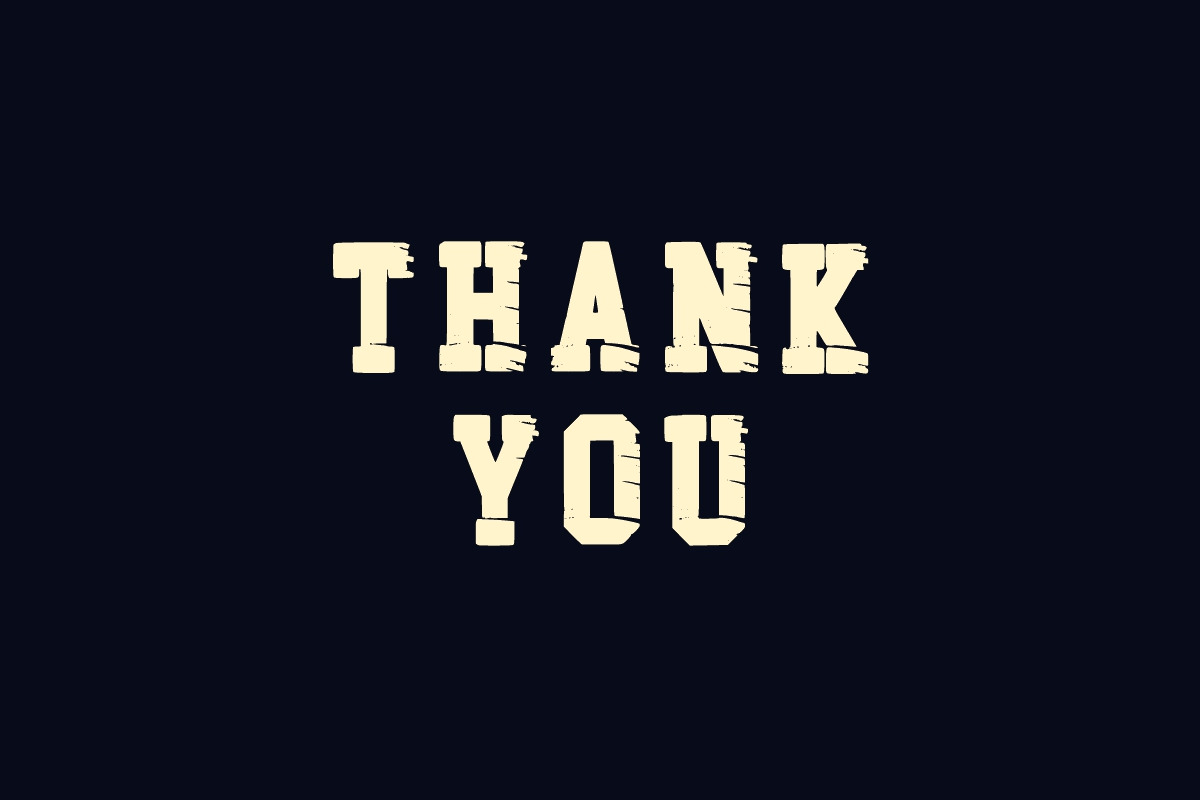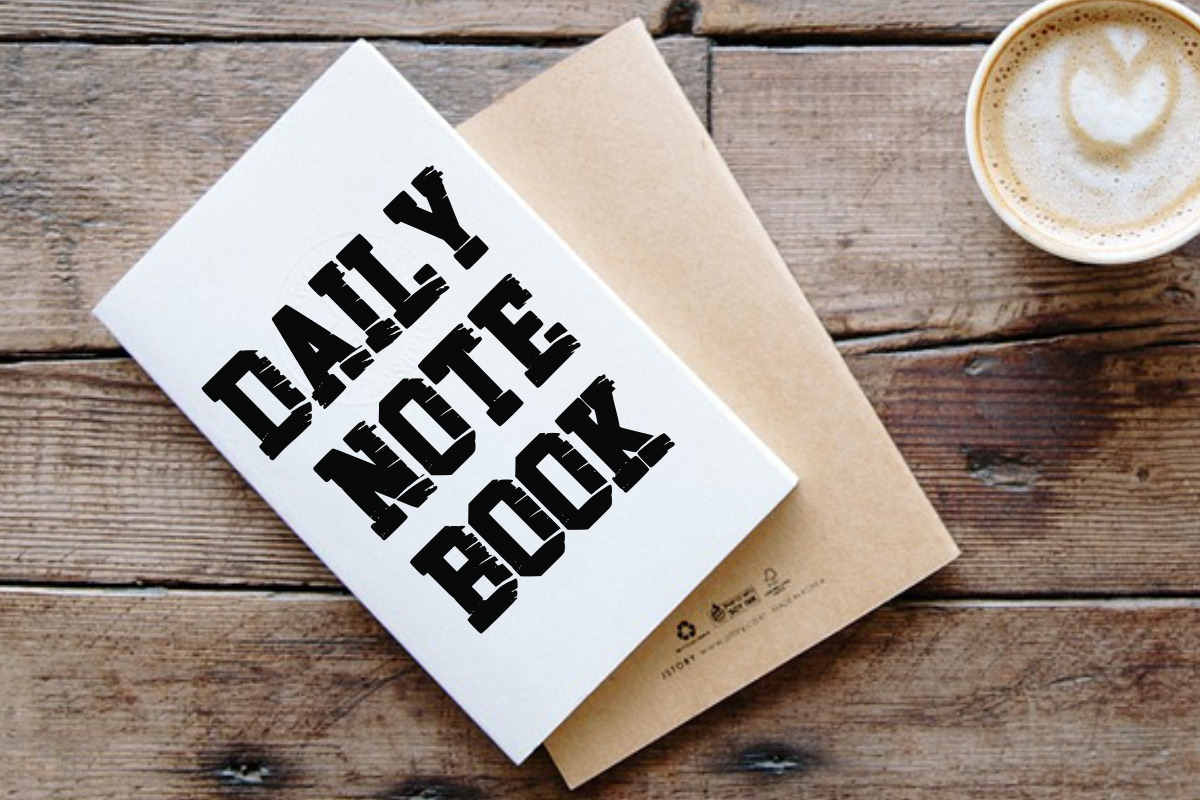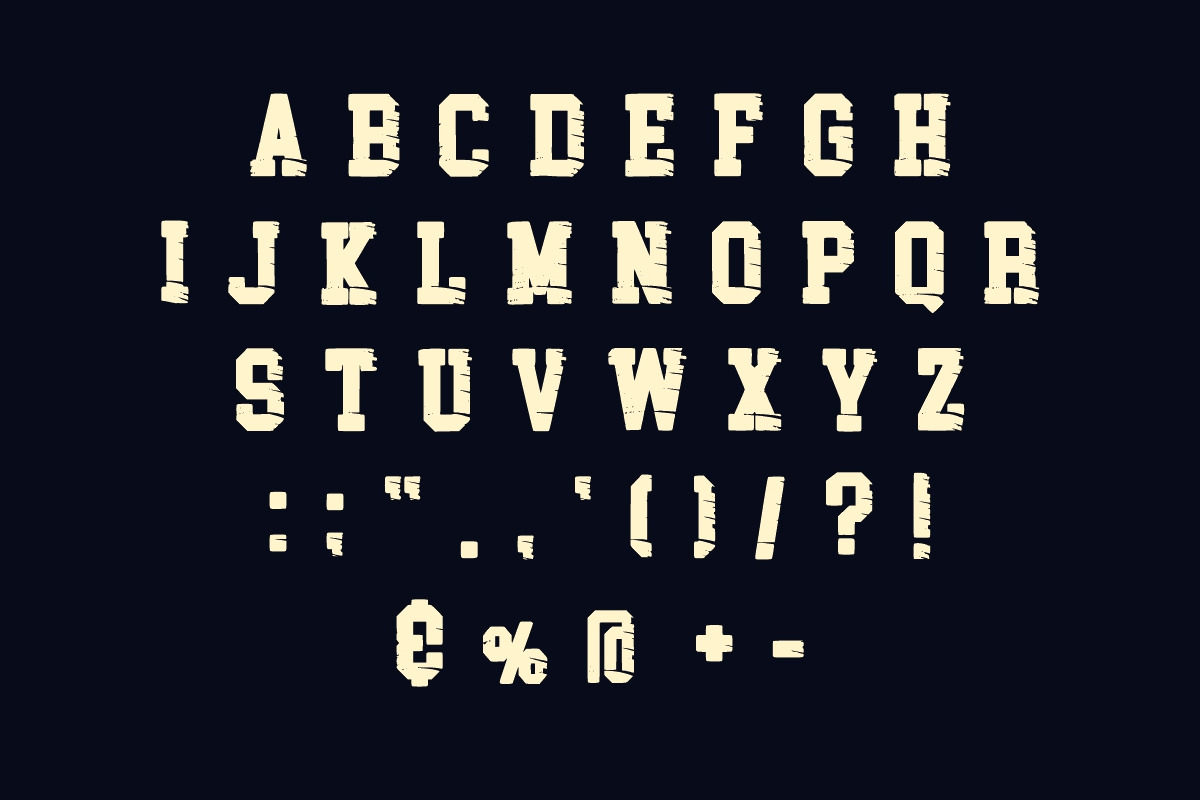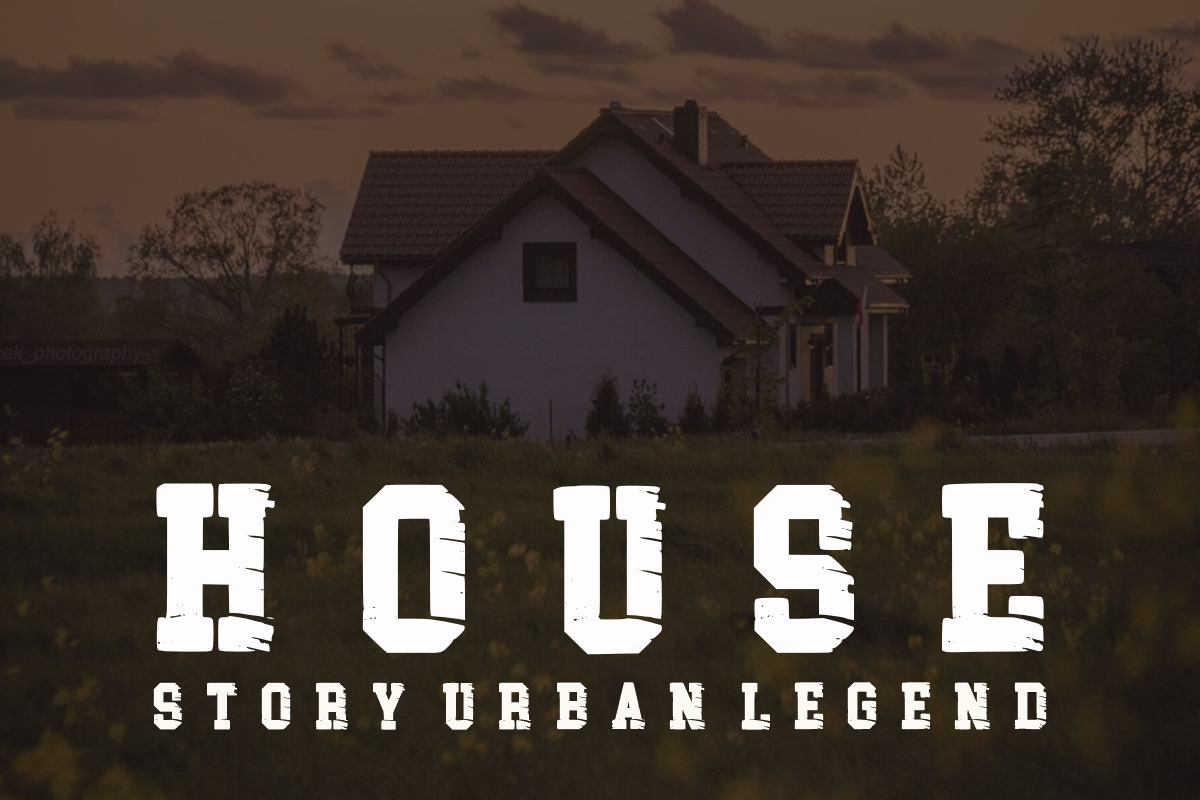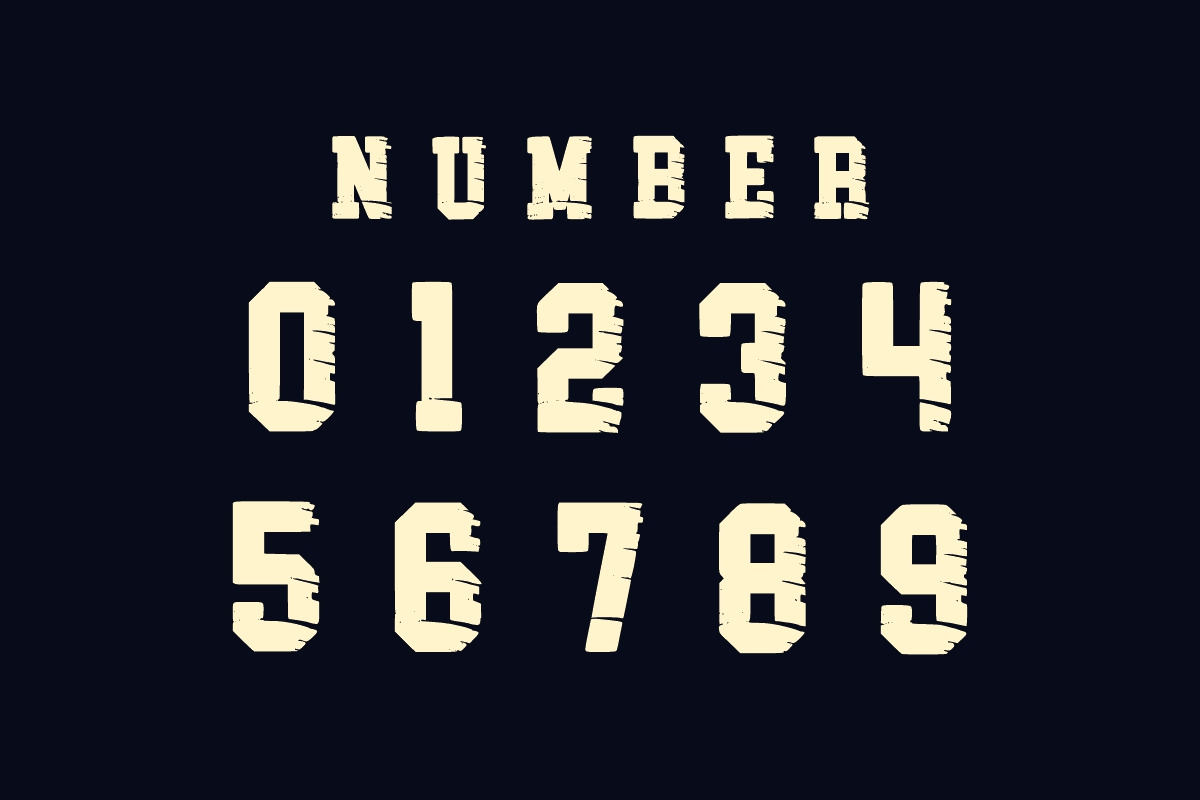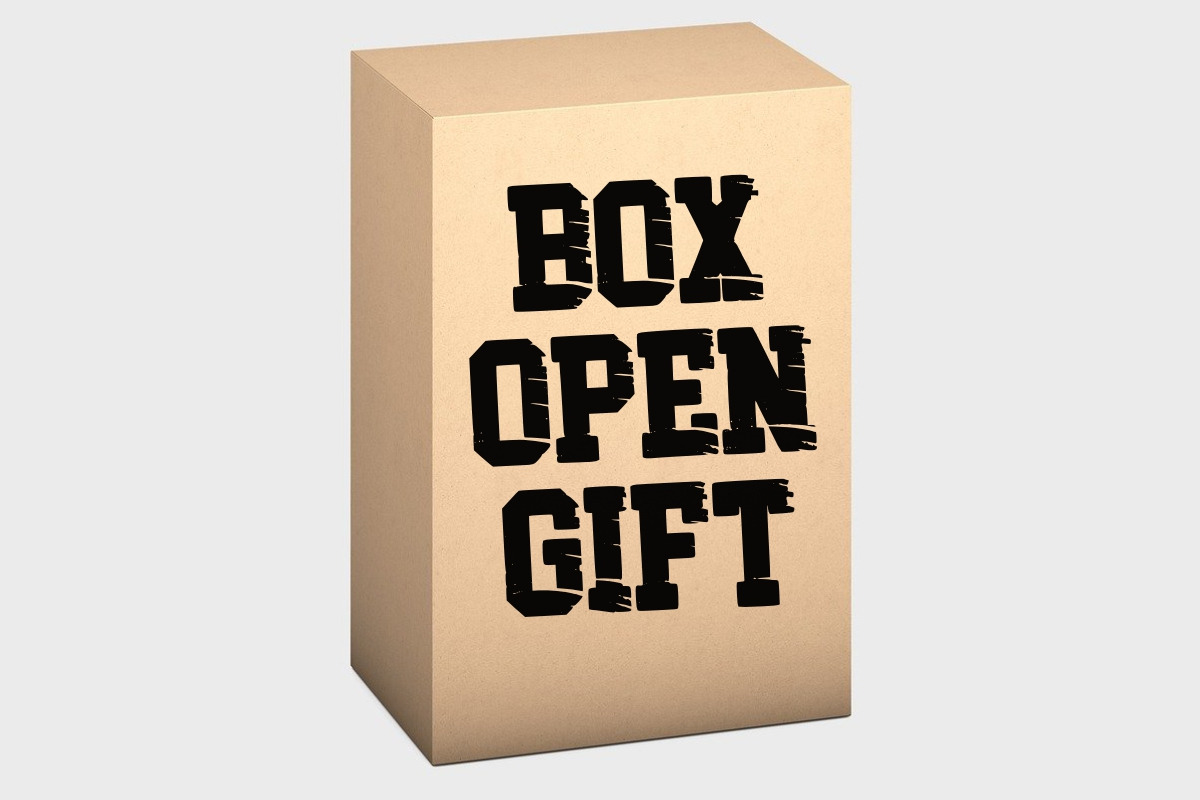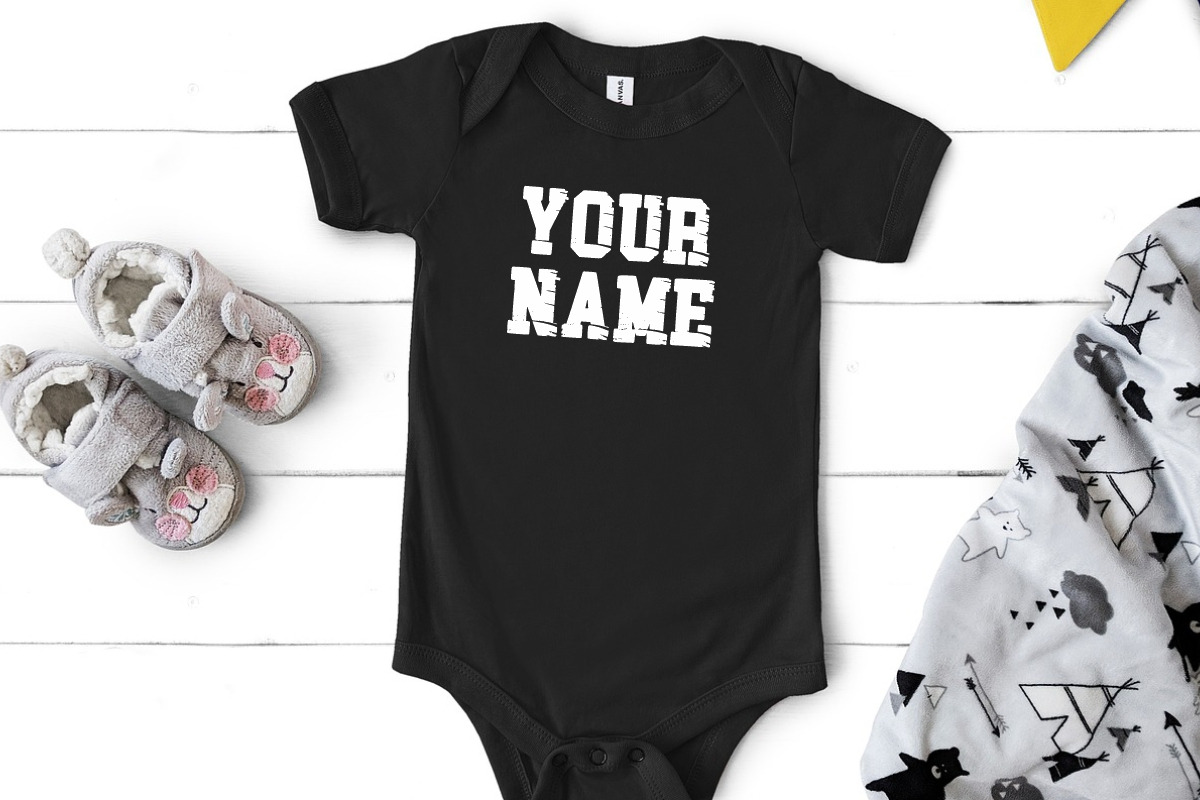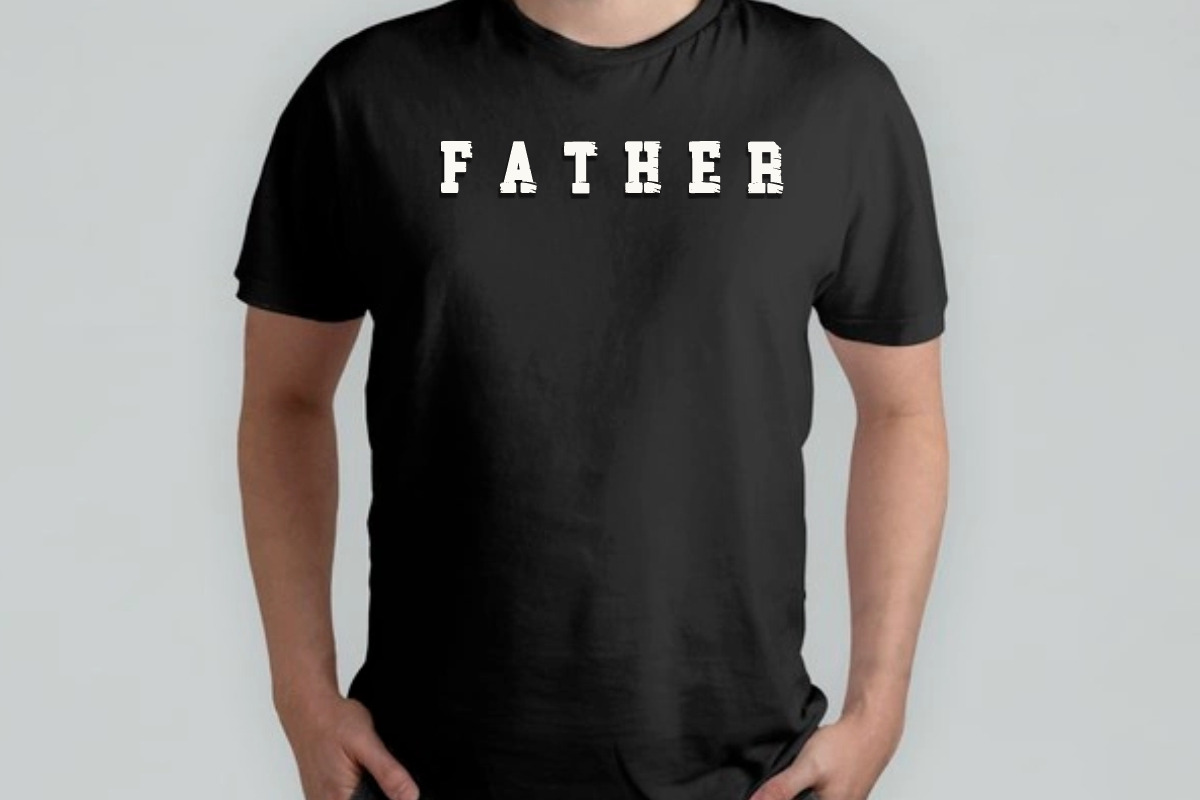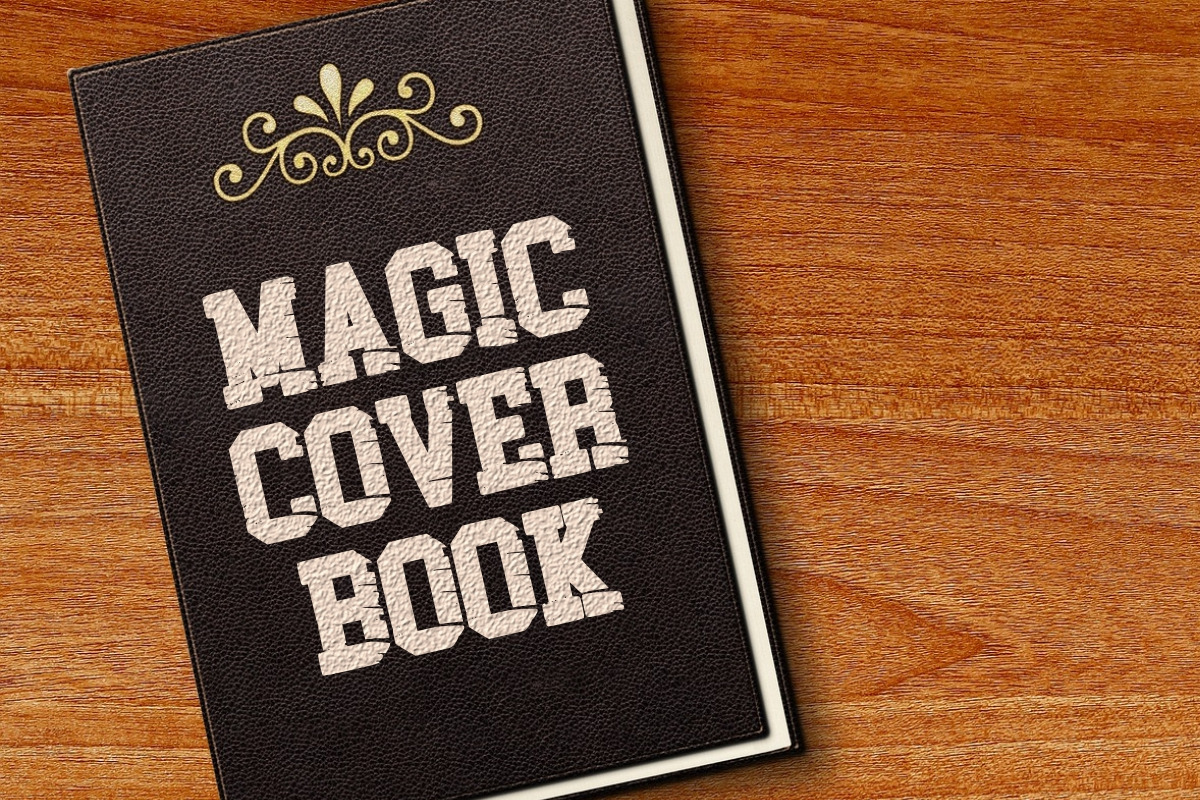
Vintage Jersey
Vintage Jersey is a vintage, slab serif, modern and bold font. It is suitable for any winter and holiday branding project, product packaging, invitation, quote, t-shirt, label, poster, text effect, label, and logo that you wish to develop.